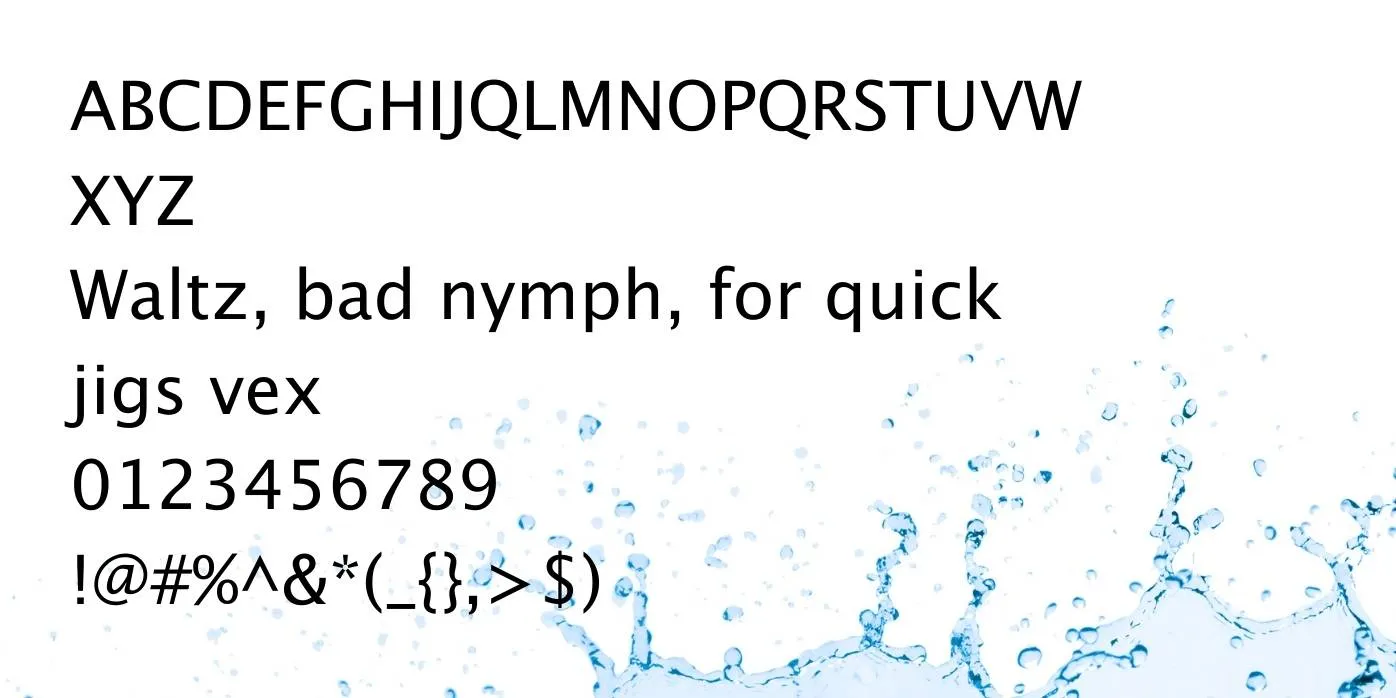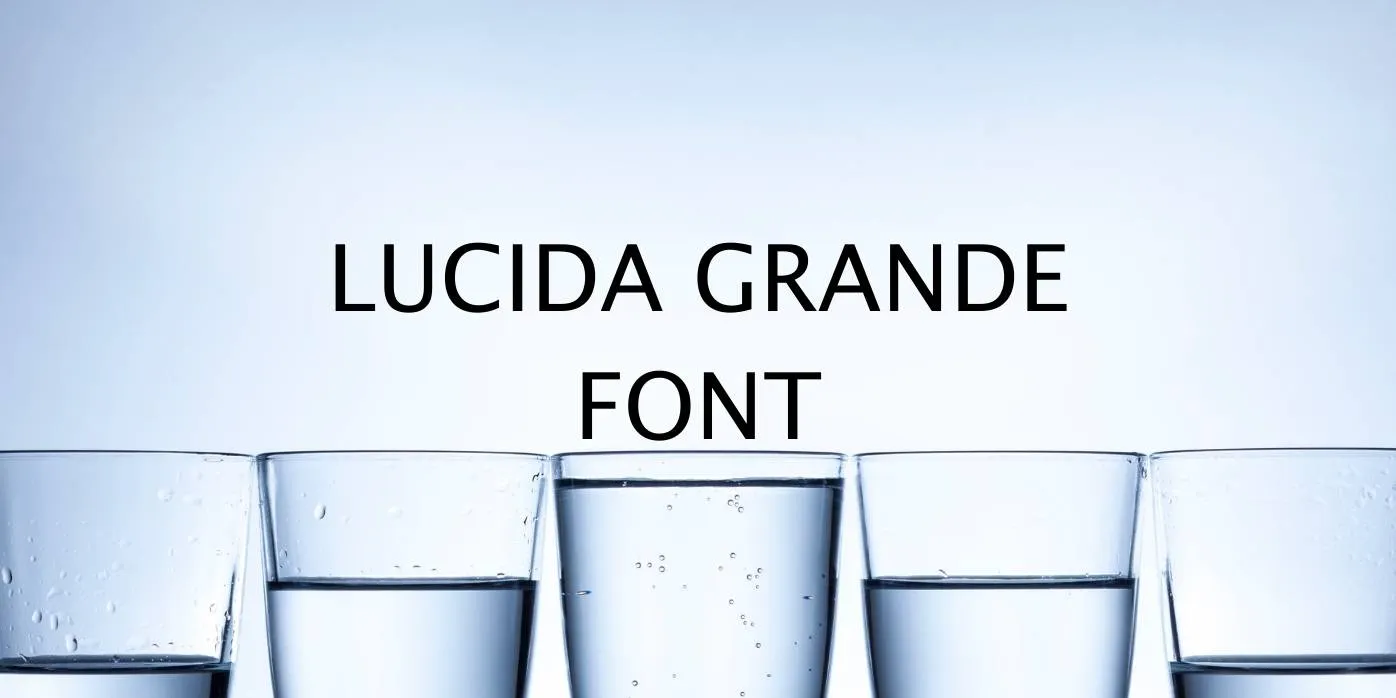
Lucida Grande Font
Introducing the high standard with a humanistic touch that is Lucida Grande Font. The designers of this top-notch font are Charles Bigelow and Kris Holmes that have great crafting. The font family belongs to a sans serif family and is free for personal use. The font family has TTF features and has different weights that include Regular and Bold and both weights have Truetype features.
This typeface supports many international languages and accents and is legible for the viewer and user. Its humanistic characters are very common for typography and display projects. You may also generate this extraordinary typeface from the online generator tool. It has too many glyphs with alternatives and special useful symbols and can fit on every difficult task.